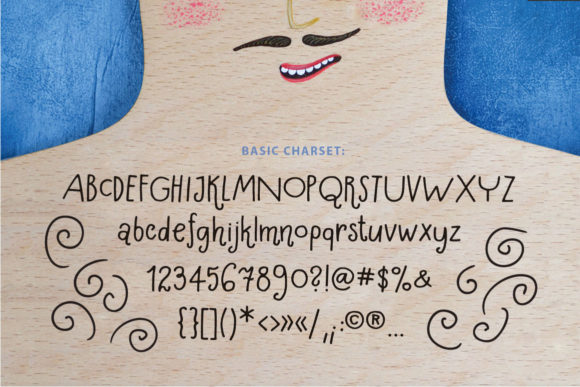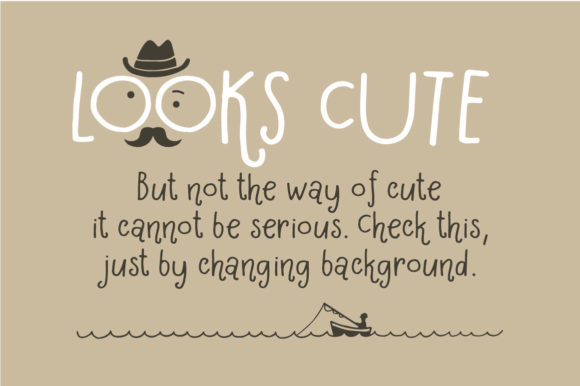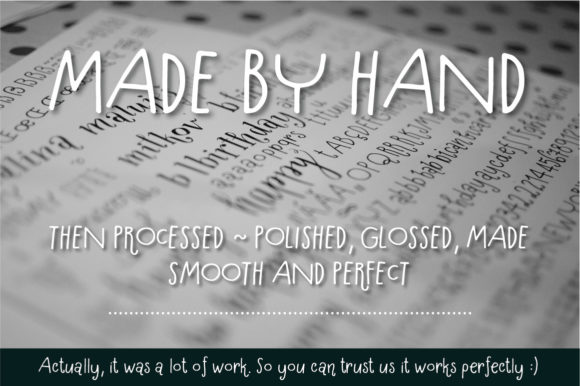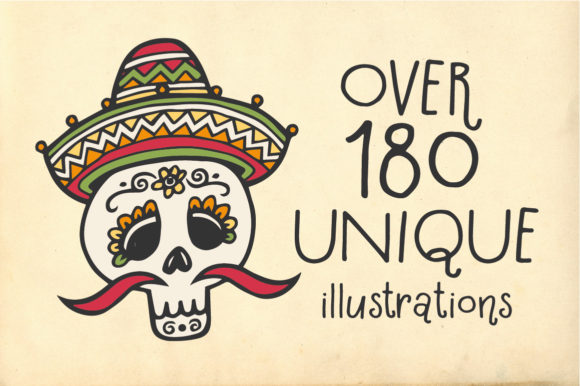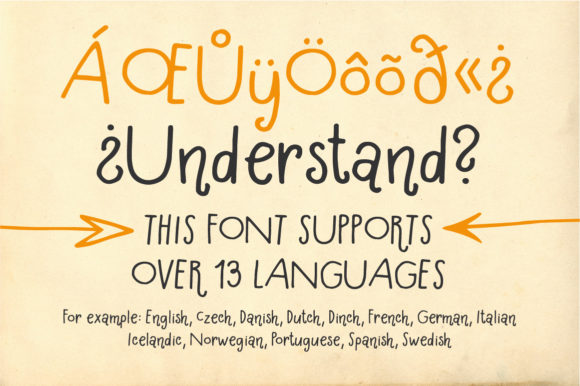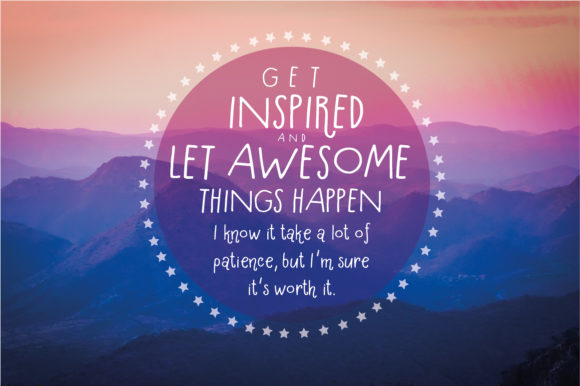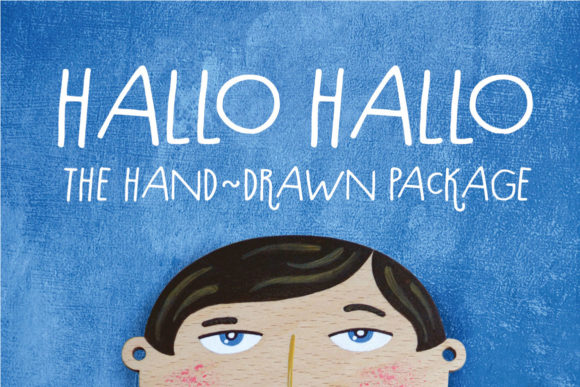
Hallo Hallo Font: A Simple yet Unique Lettered Handwritten Font
In the world of typography, fonts play a crucial role in making or breaking a design. With thousands of fonts available, it can be overwhelming to choose the right one for your project. However, if you’re looking for a simple and neat lettered handwritten font that can elevate your design, look no further than Hallo Hallo. In this article, we’ll dive into the features and benefits of Hallo Hallo font and explore how it can be used in various design projects.
What is Hallo Hallo Font?
Hallo Hallo is a simple and neat lettered handwritten font that boasts a natural and unique style. Its effortless charm makes it incredibly fitting to a large pool of designs, from creative crafts to digital projects. The font’s simplicity and elegance make it an excellent choice for designers and crafters looking for a versatile font that can be used in various contexts.
Key Features of Hallo Hallo Font
- Simple and Neat: Hallo Hallo font features a clean and straightforward design that makes it easy to read and use.
- Handwritten Style: The font’s handwritten style gives it a personal and organic feel that’s perfect for designs that require a touch of warmth and personality.
- Natural and Unique: Hallo Hallo font has a distinct character that sets it apart from other fonts, making it an excellent choice for designers looking for a font that can add a unique touch to their designs.
- Versatile: The font’s simplicity and elegance make it suitable for a wide range of designs, from digital projects to creative crafts.
Benefits of Using Hallo Hallo Font
So, why choose Hallo Hallo font for your design project? Here are some benefits of using this versatile font:
- Easily Readable: Hallo Hallo font is easy to read, making it perfect for designs that require a clear and concise message.
- Time-Saving: The font’s simplicity and elegance make it easy to use and style, saving you time and effort in the design process.
- Customizable: Hallo Hallo font can be easily customized to fit your design needs, making it an excellent choice for designers who want to add a personal touch to their work.
- Unique and Creative: The font’s unique style makes it an excellent choice for designers looking to add a creative and artistic touch to their designs.
Using Hallo Hallo Font in Design Projects
Hallo Hallo font can be used in a wide range of design projects, including:
- Digital Projects: Use Hallo Hallo font in digital projects such as website designs, social media graphics, and email marketing campaigns.
- Creative Crafts: The font is perfect for creative crafts such as handmade cards, scrapbooking, and DIY projects.
- Branding and Packaging: Hallo Hallo font can be used in branding and packaging designs to add a personal and unique touch.
- Stationery and Invitations: The font is suitable for designing stationery, invitations, and other paper products.
In conclusion, Hallo Hallo font is a simple and neat lettered handwritten font that offers a unique and natural style that’s perfect for a wide range of design projects. Its versatility, readability, and customizability make it an excellent choice for designers and crafters looking for a font that can elevate their designs. Whether you’re working on a digital project or a creative craft, Hallo Hallo font is an excellent choice that can add a touch of elegance and sophistication to your work.